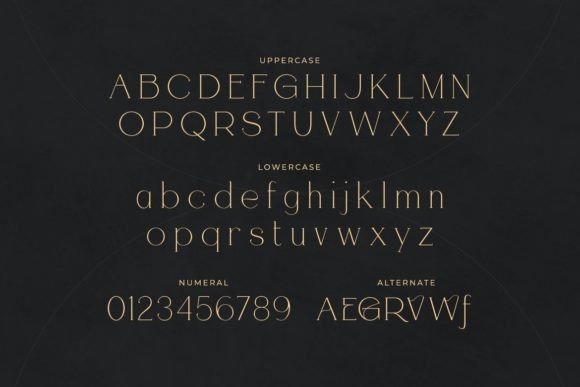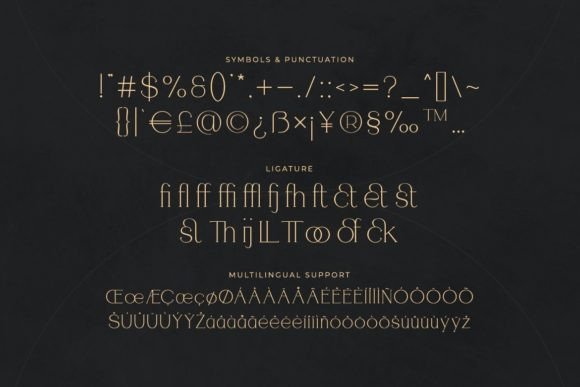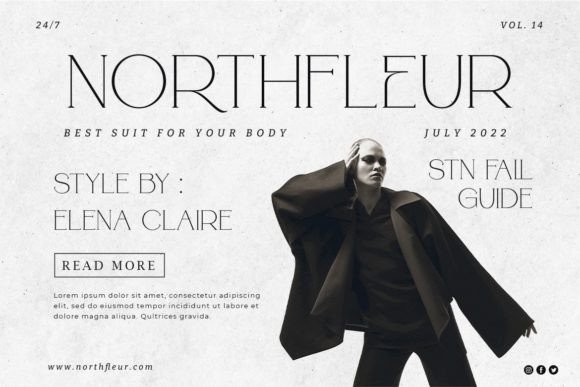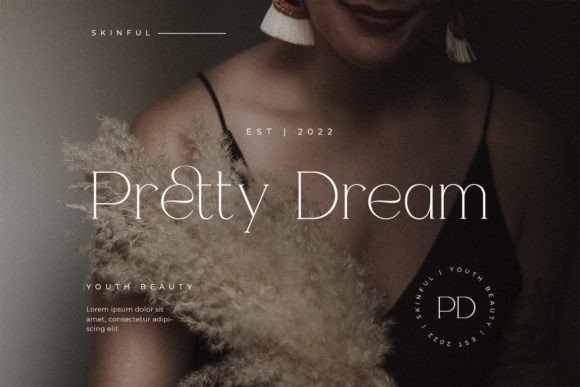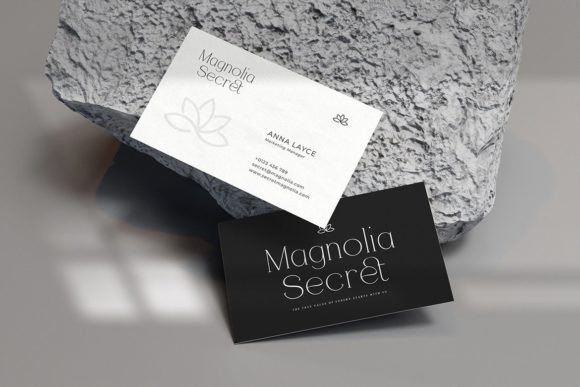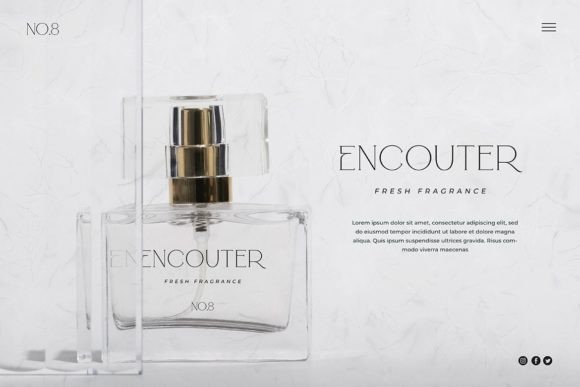
Introducing Gasetta Font: Elevate Your Designs with Elegance and Versatility
In the world of typography, finding the perfect font that combines elegance, tradition, and modernity can be a daunting task. However, if you’re looking for a typeface that embodies sophistication and versatility, look no further than Gasetta Font. This exquisite serif font seamlessly blends traditional influences with a contemporary aesthetic, making it an ideal choice for a wide range of design projects.
The Essence of Gasetta Font
Gasetta is an elegant serif font that has been crafted with precision and attention to detail. Its design draws inspiration from traditional typography, yet it boasts a modern and fresh look that will elevate your designs to new heights. The font’s classic roots are evident in its refined lines, balanced proportions, and beautiful letterforms, which exude a sense of sophistication and luxury.
One of the standout features of Gasetta Font is its incredible versatility. Whether you’re working on a branding project, a website design, or a print material, this font can be easily matched to an incredibly large set of projects. Its chameleon-like ability to adapt to different design styles and contexts makes it a valuable addition to any designer’s toolkit.
Achieve an Exquisite yet Subtle Look
Gasetta Font is designed to help you achieve an exquisite yet subtle look in your designs. Its elegant letterforms and carefully crafted glyphs work together to create a beautiful visual experience that is both refined and understated. Whether you’re aiming to create a luxurious brand identity or a sophisticated website design, Gasetta Font provides the perfect typographic solution.
The font’s subtle yet elegant appearance makes it an excellent choice for designs that require a high level of sophistication. From high-end fashion brands to luxury hotels and resorts, Gasetta Font can help you create a lasting impression on your audience.
Gasetta Font is PUA (Private Use Area) encoded, which means that you can access all of its amazing glyphs and ligatures with ease. PUA encoding allows you to unlock the full potential of the font, giving you access to a wide range of alternative characters, swashes, and other typographic features that can enhance your designs.
With PUA encoding, you can easily navigate the font’s vast character set and select the perfect glyphs and ligatures to suit your design needs. This feature makes Gasetta Font incredibly user-friendly and convenient to work with, saving you time and effort in the design process.
Gasetta Font is an excellent choice for designers and crafters who are looking for a high-quality typeface that can elevate their designs. Whether you’re a professional designer or a DIY enthusiast, this font provides the perfect combination of elegance, versatility, and ease of use.
Designers can use Gasetta Font to create stunning brand identities, website designs, and print materials that exude sophistication and luxury. Crafters can also use this font to add a touch of elegance to their handmade projects, such as greeting cards, invitations, and scrapbook pages.
Key Features of Gasetta Font
- Elegant serif font with traditional influences and a contemporary aesthetic
- Incredibly versatile and can be matched to a wide range of design projects
- Exquisite yet subtle look that’s perfect for luxury brands and sophisticated designs
- High-quality typeface that’s perfect for designers and crafters
Gasetta Font is an exceptional typeface that offers a unique blend of elegance, tradition, and modernity. Its versatility, PUA encoding, and exquisite design make it an ideal choice for designers and crafters who are looking for a high-quality font that can elevate their designs. Whether you’re working on a branding project, a website design, or a handmade craft, Gasetta Font provides the perfect typographic solution.